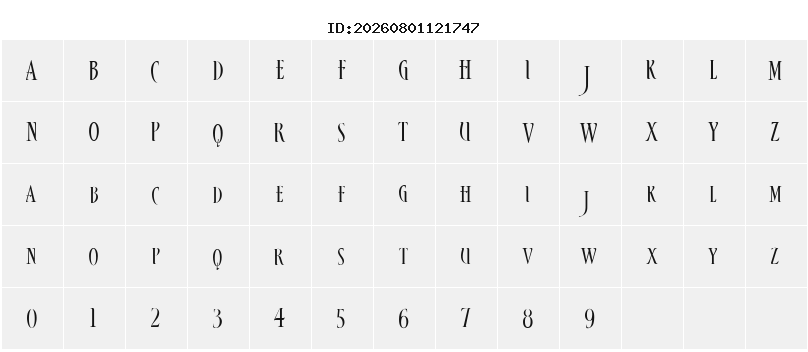
About LHF Brien.ttf
LHF Brien.ttf is a modern, elegant sans-serif font designed for ultimate readability and visual harmony. Perfect for branding, headlines, web design, and print materials.